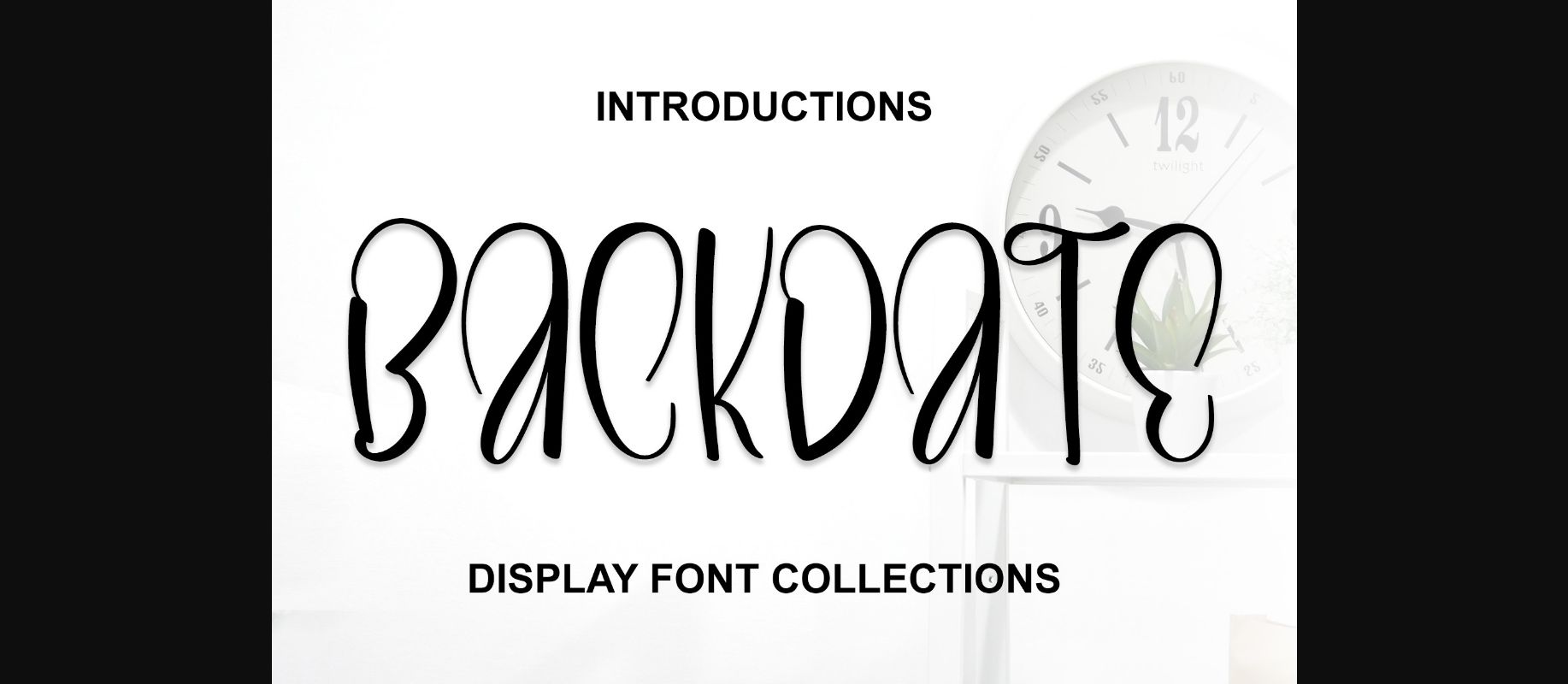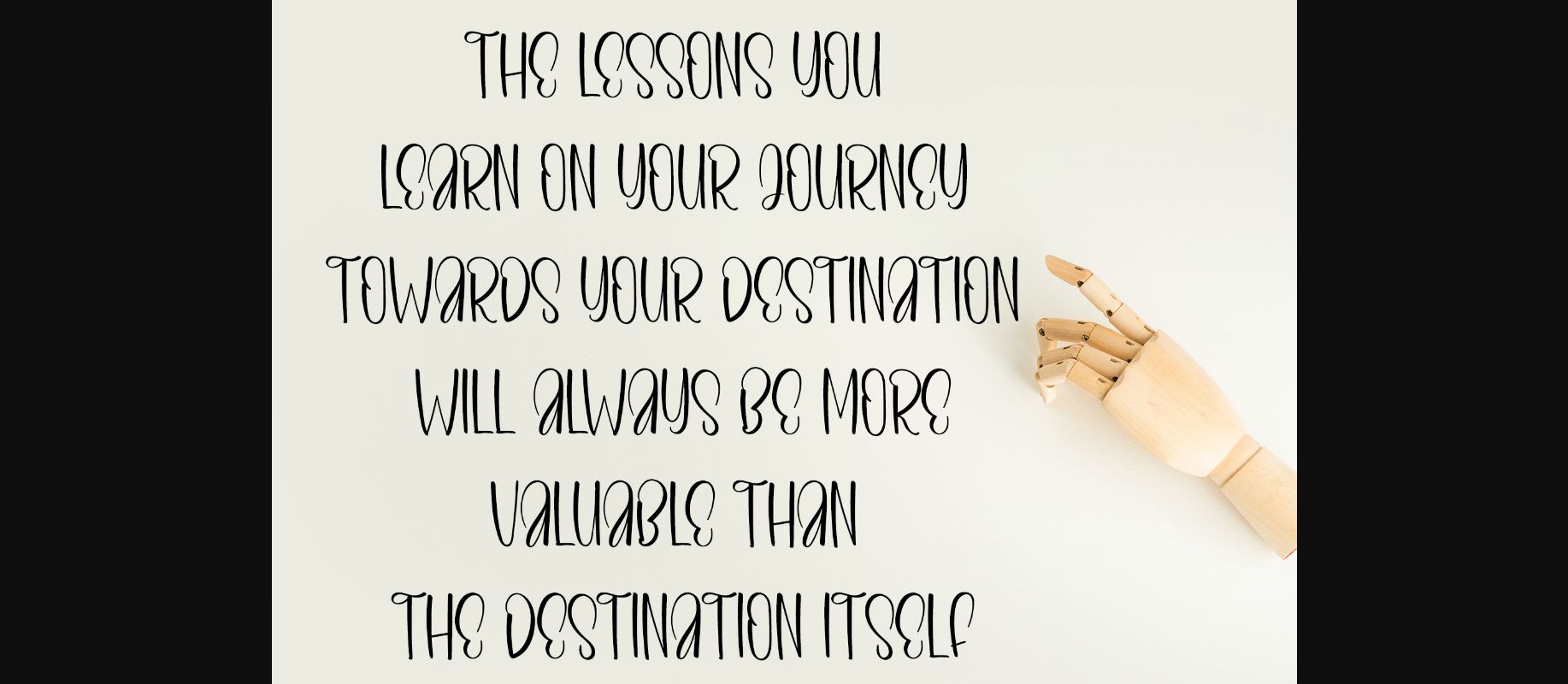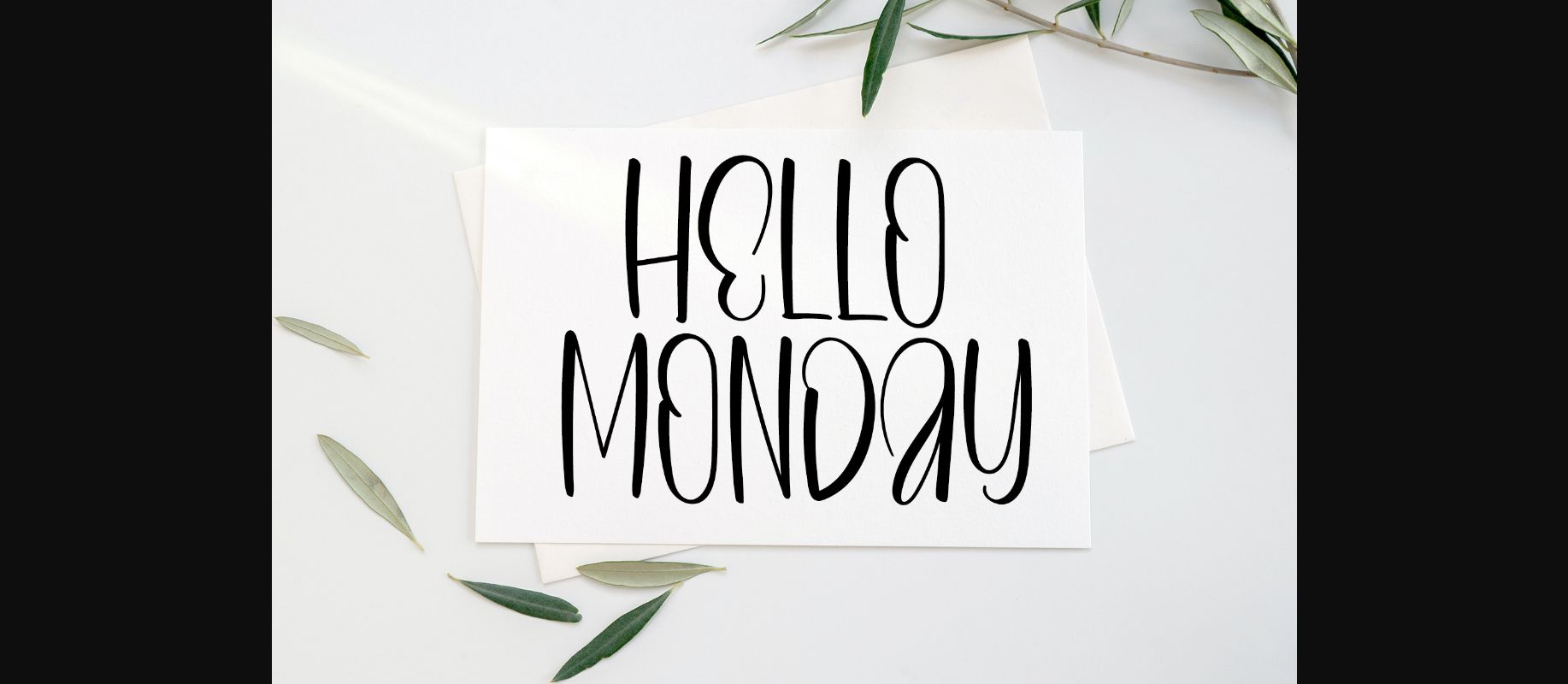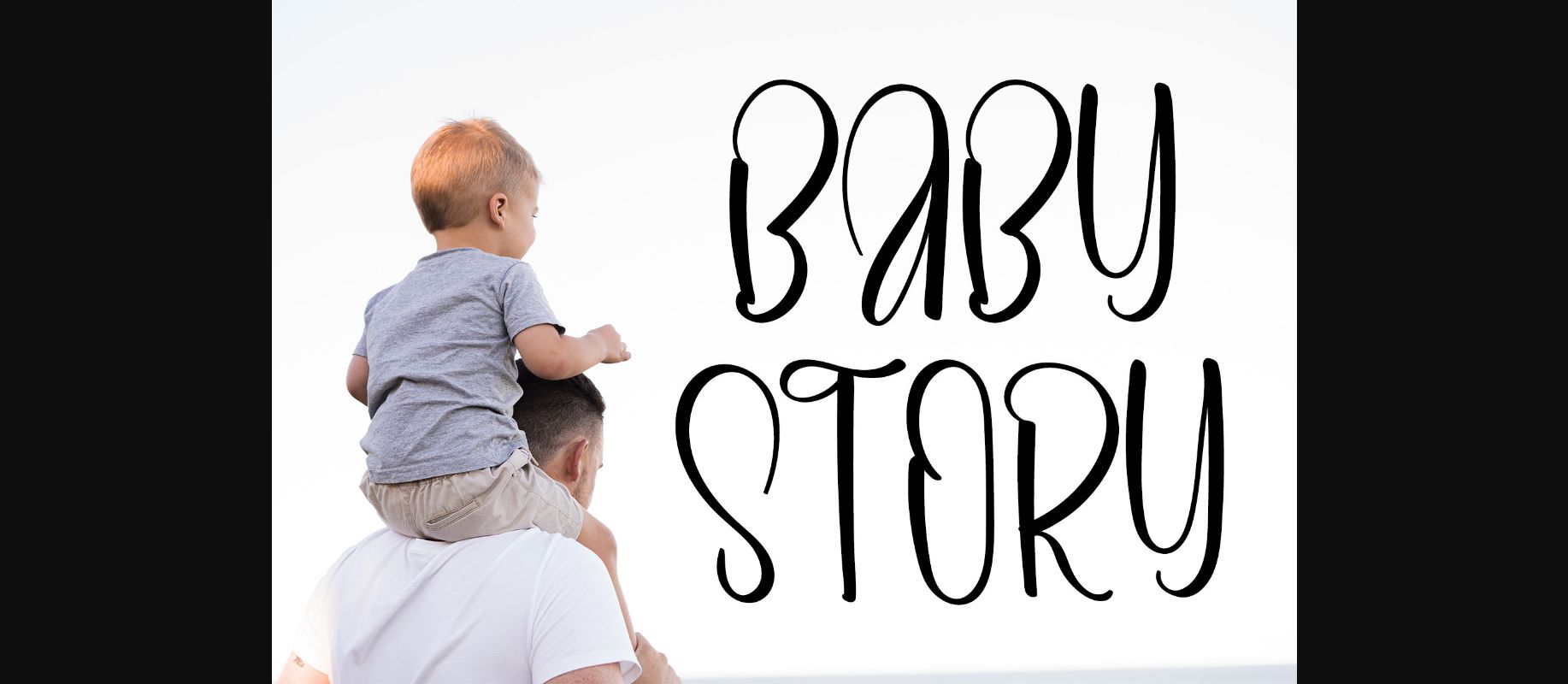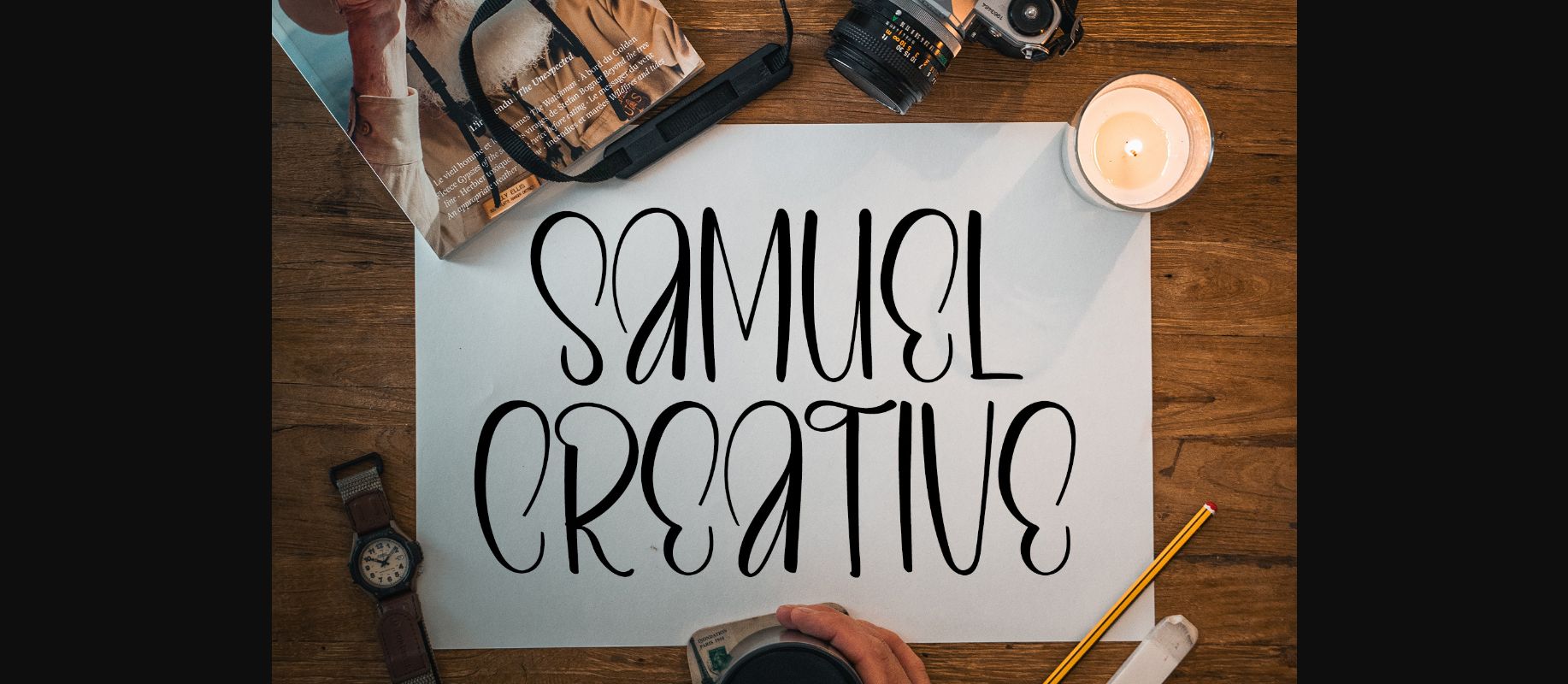
Backdate Font
About Backdate Font
Backdate is a sweet and beautiful handwritten font. Featuring characters that dance along the baseline, this font will add a luxury spark to any design project you wish to create!